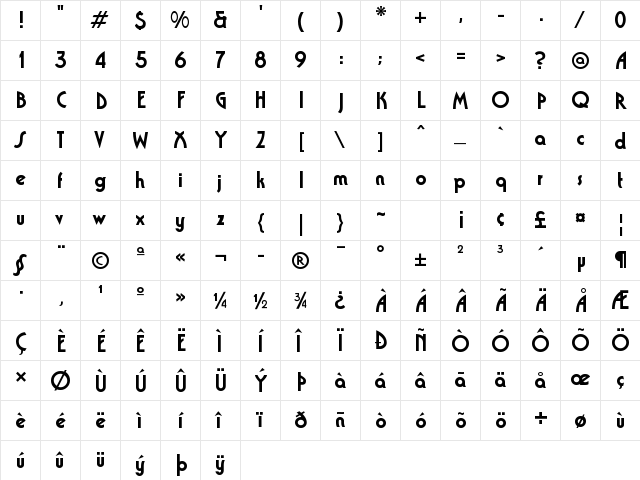
Tasmin Ref Regular
| Designer | David L. Crosby |
Design Context for Tasmin Ref Typeface
Tasmin Ref is a composed and adaptable typeface that performs quietly and consistently across a wide range of design contexts.